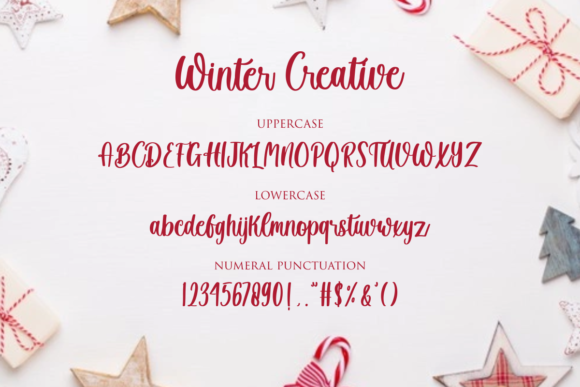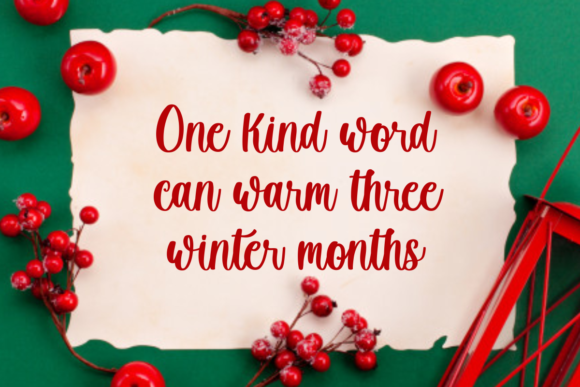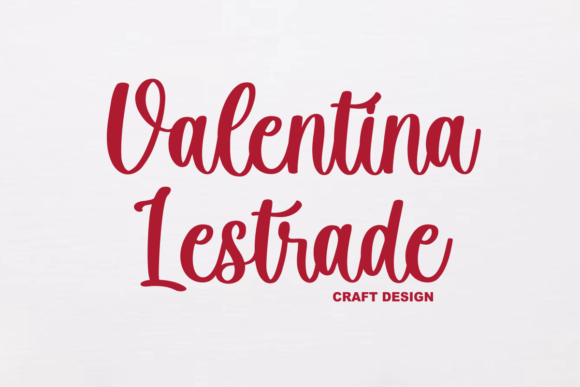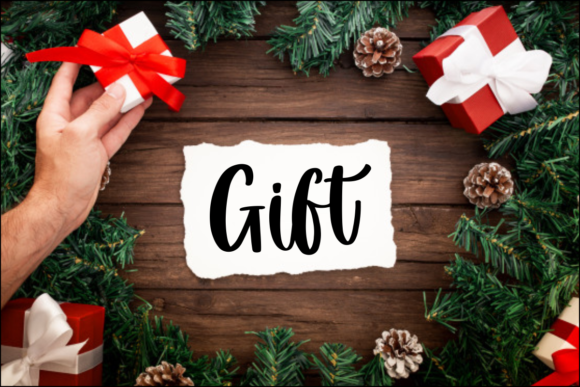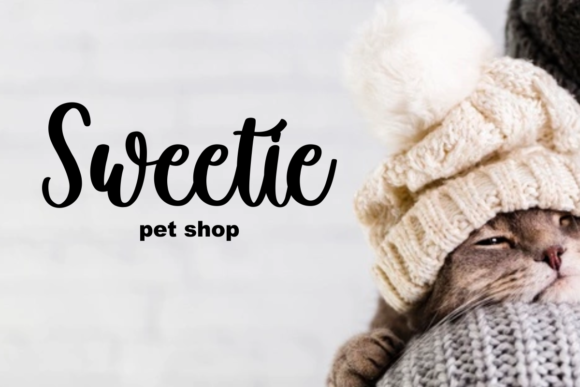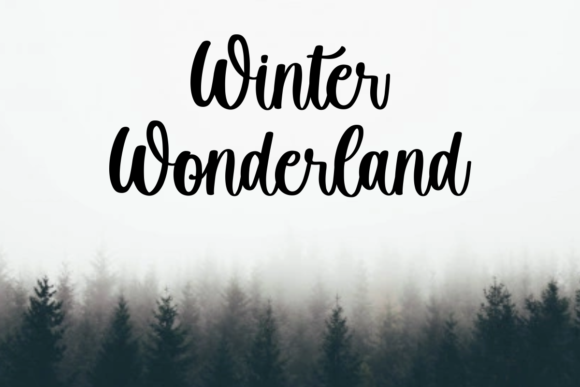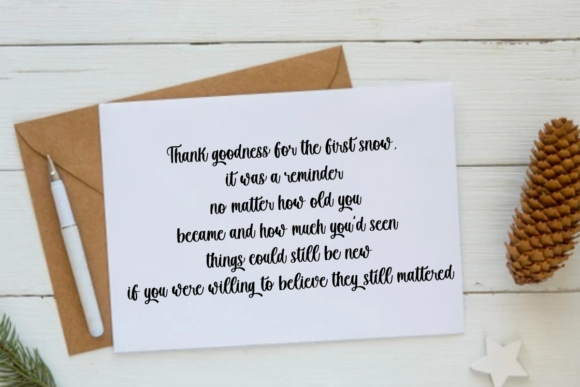
Winter Creative Font
About Winter Creative Font
Winter Creative is a stylish and incredibly elegant script font. It looks stunning on wedding invitations, thank you cards, quotes, greeting cards, logos, business cards and every other design which needs a handwritten touch.